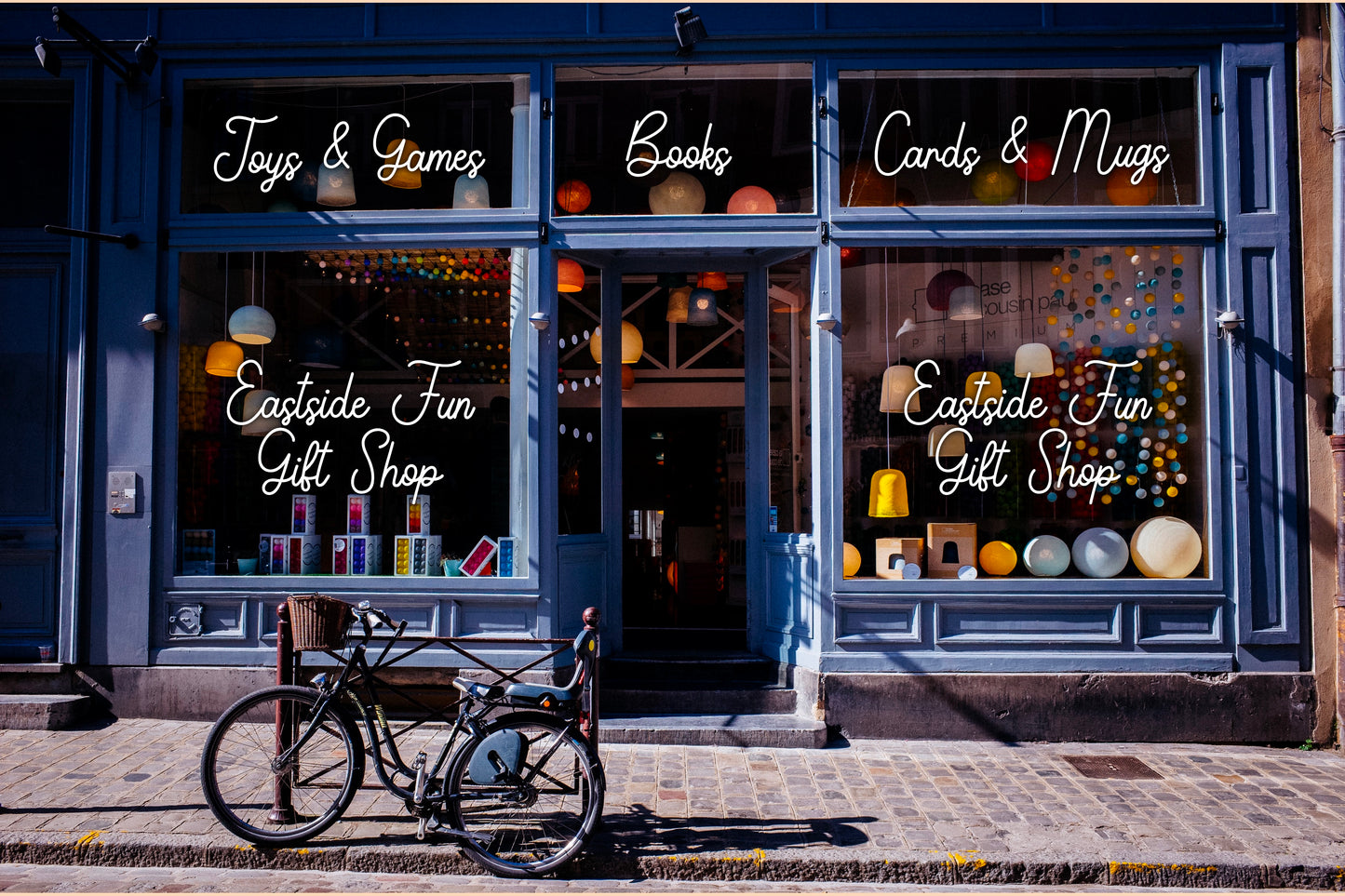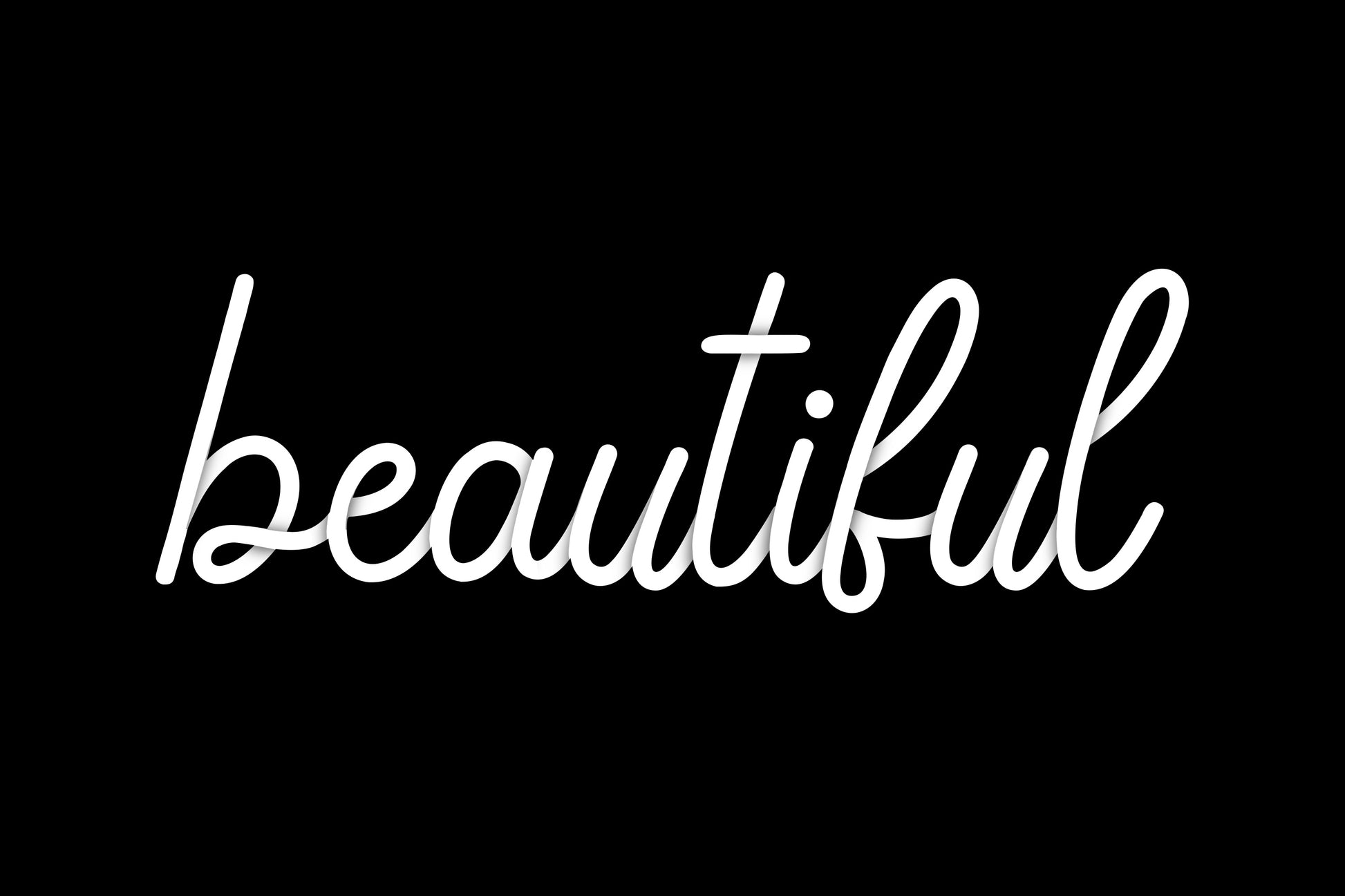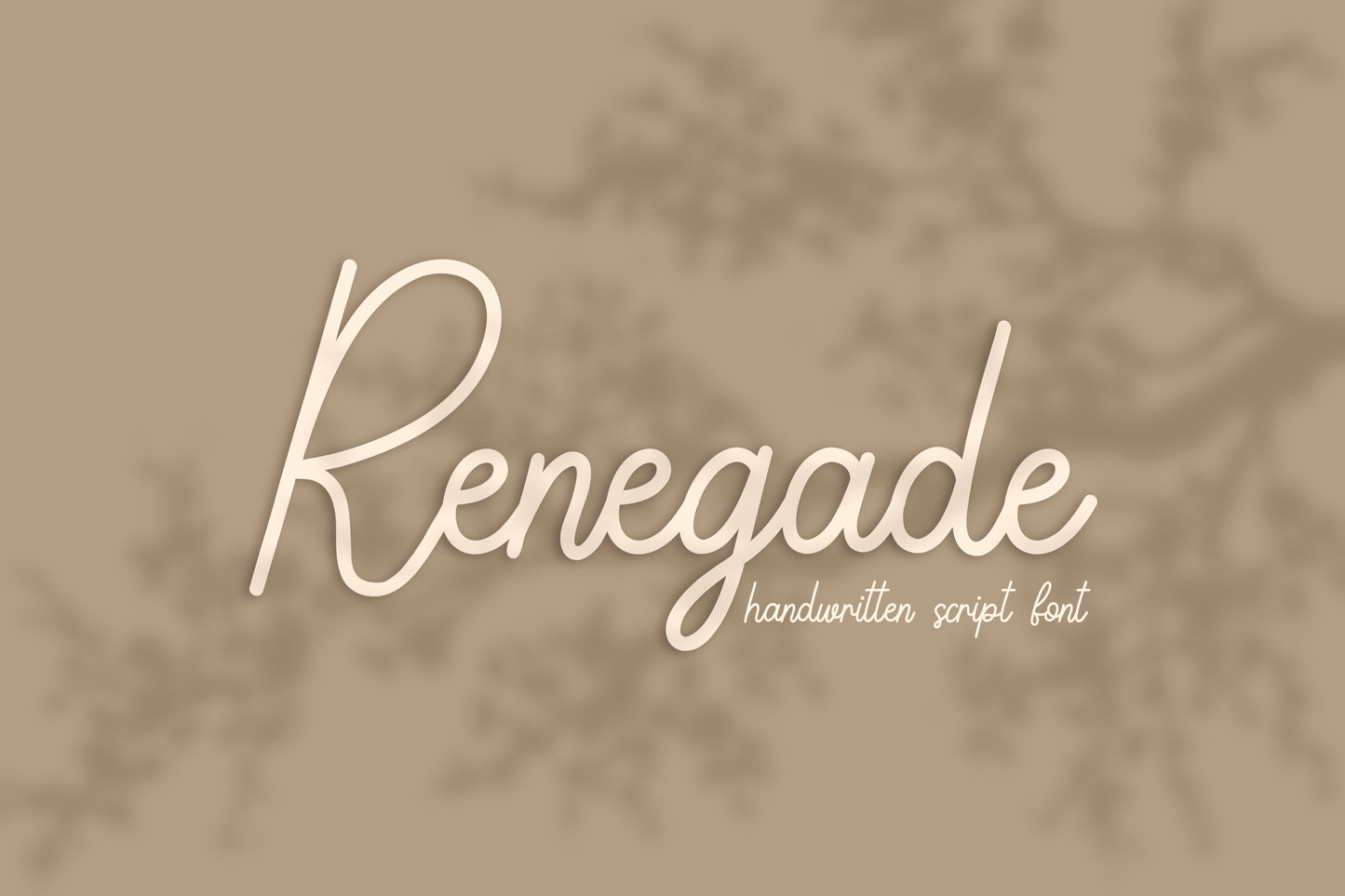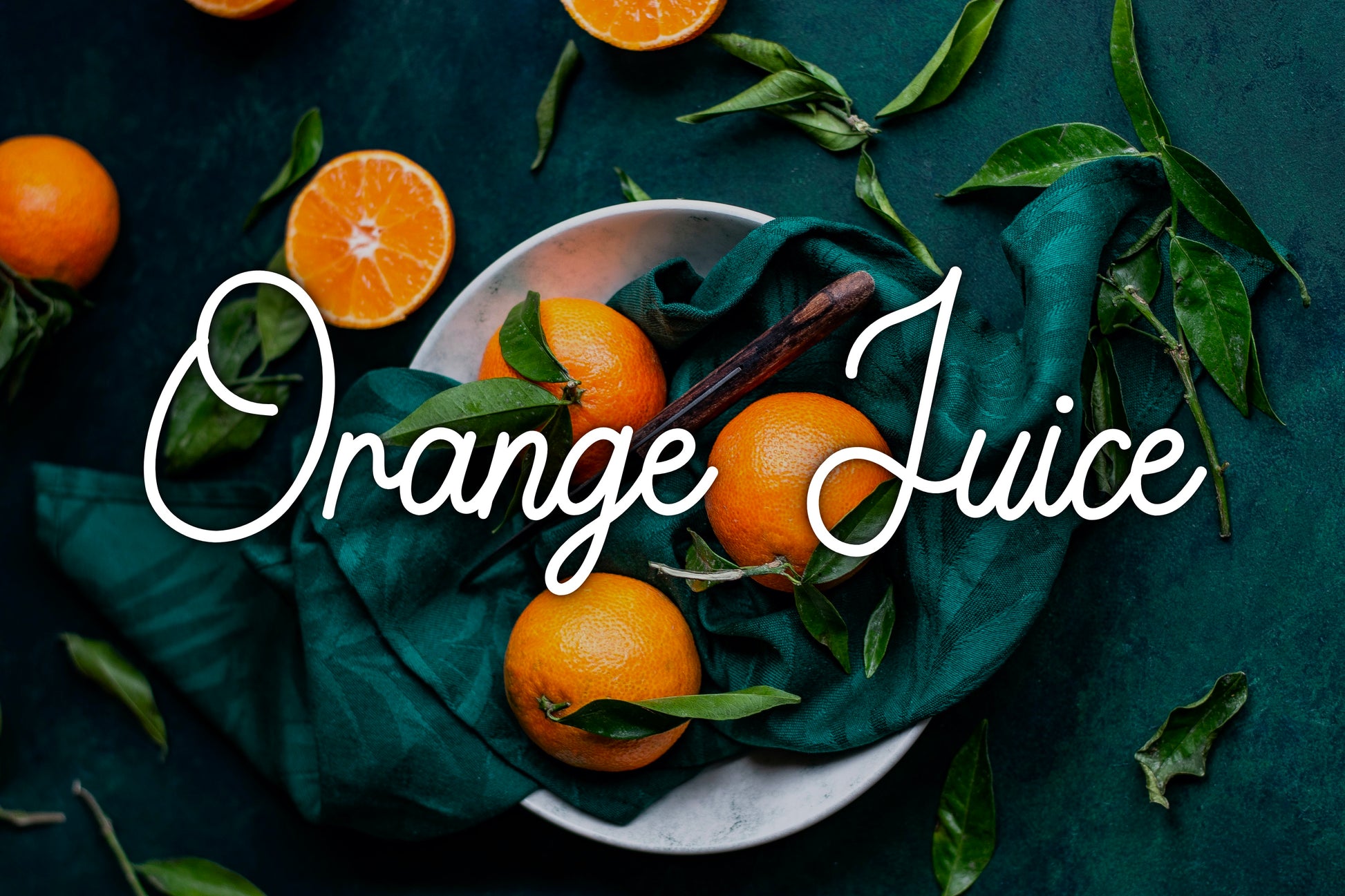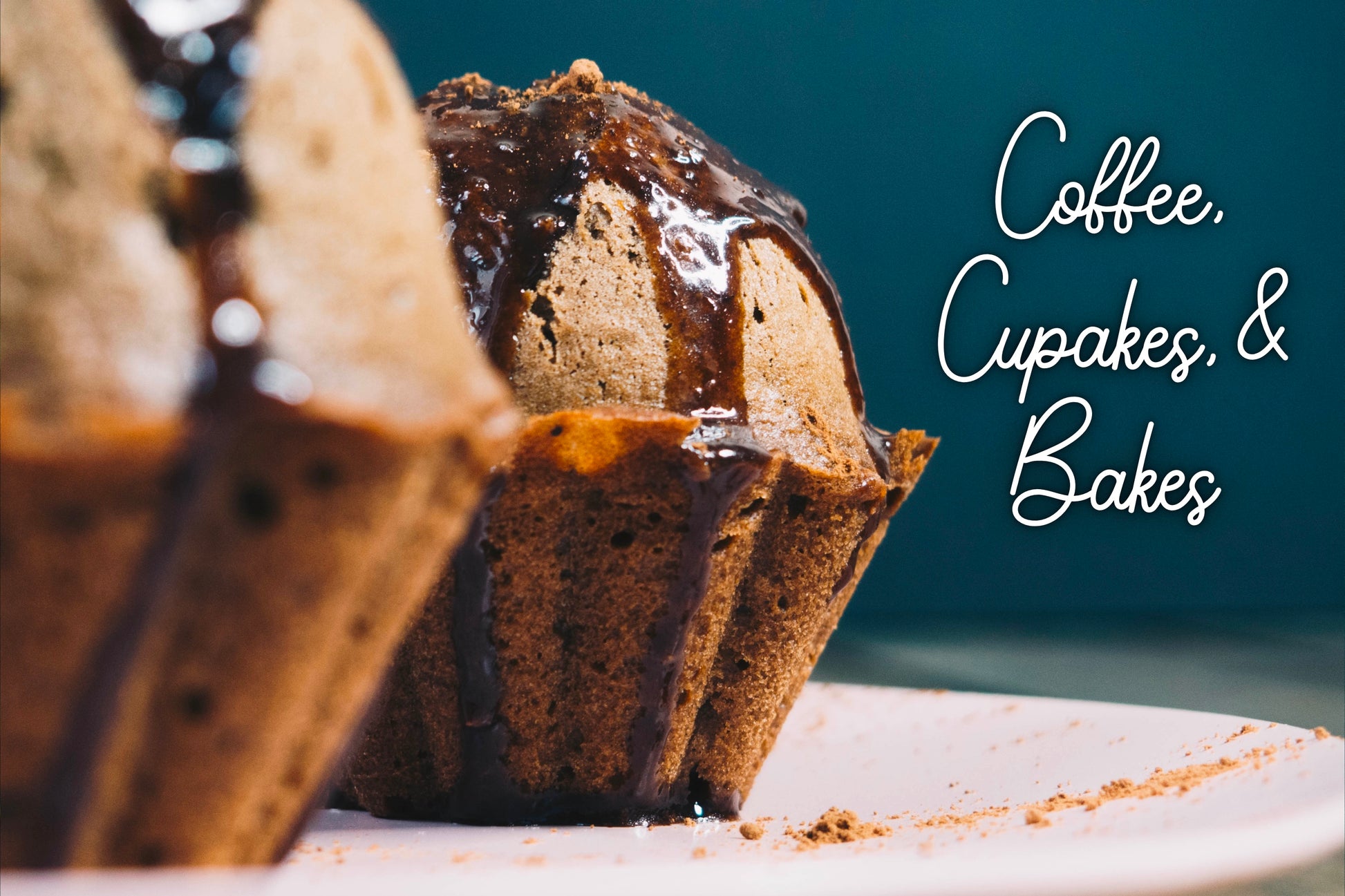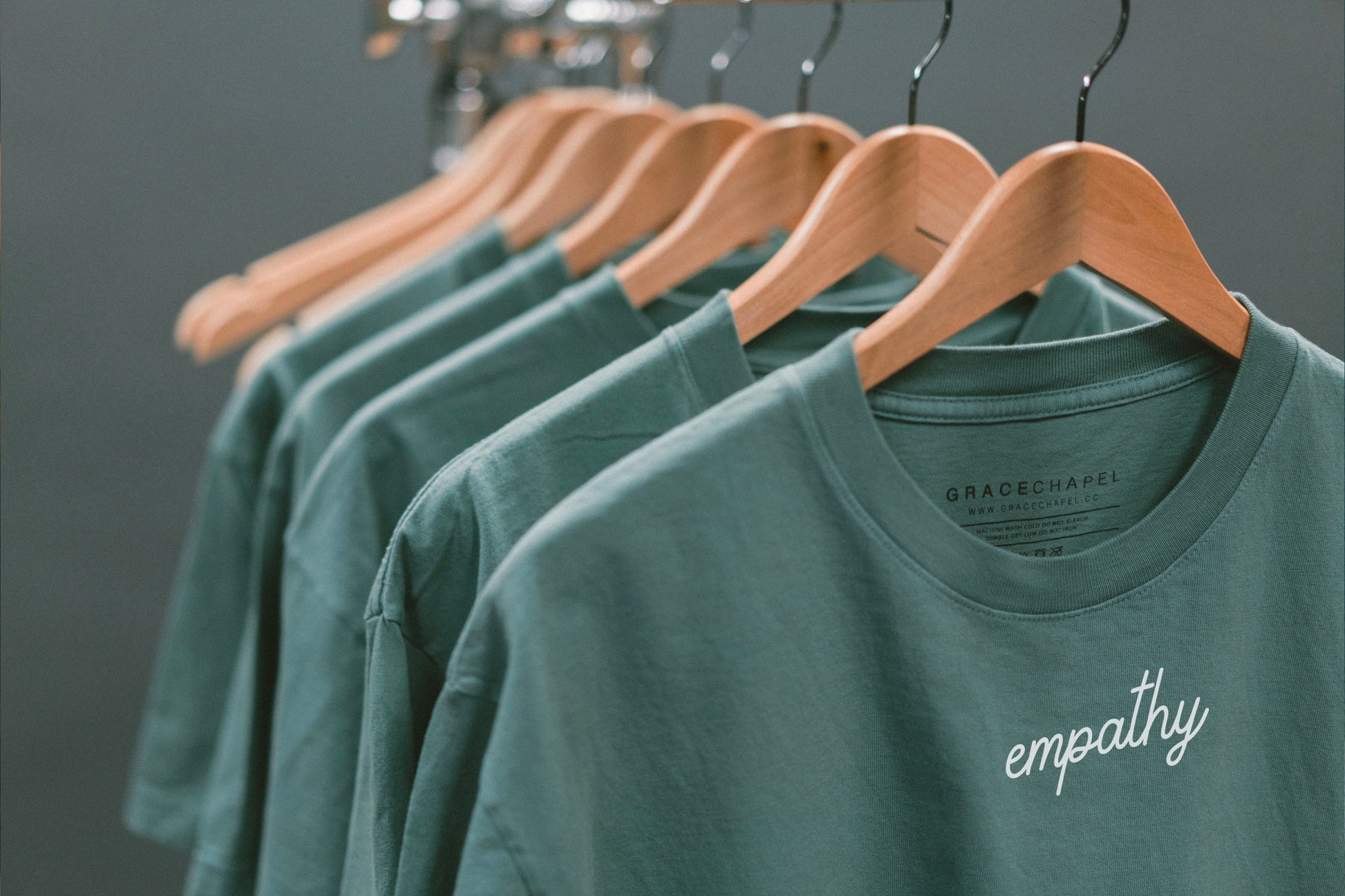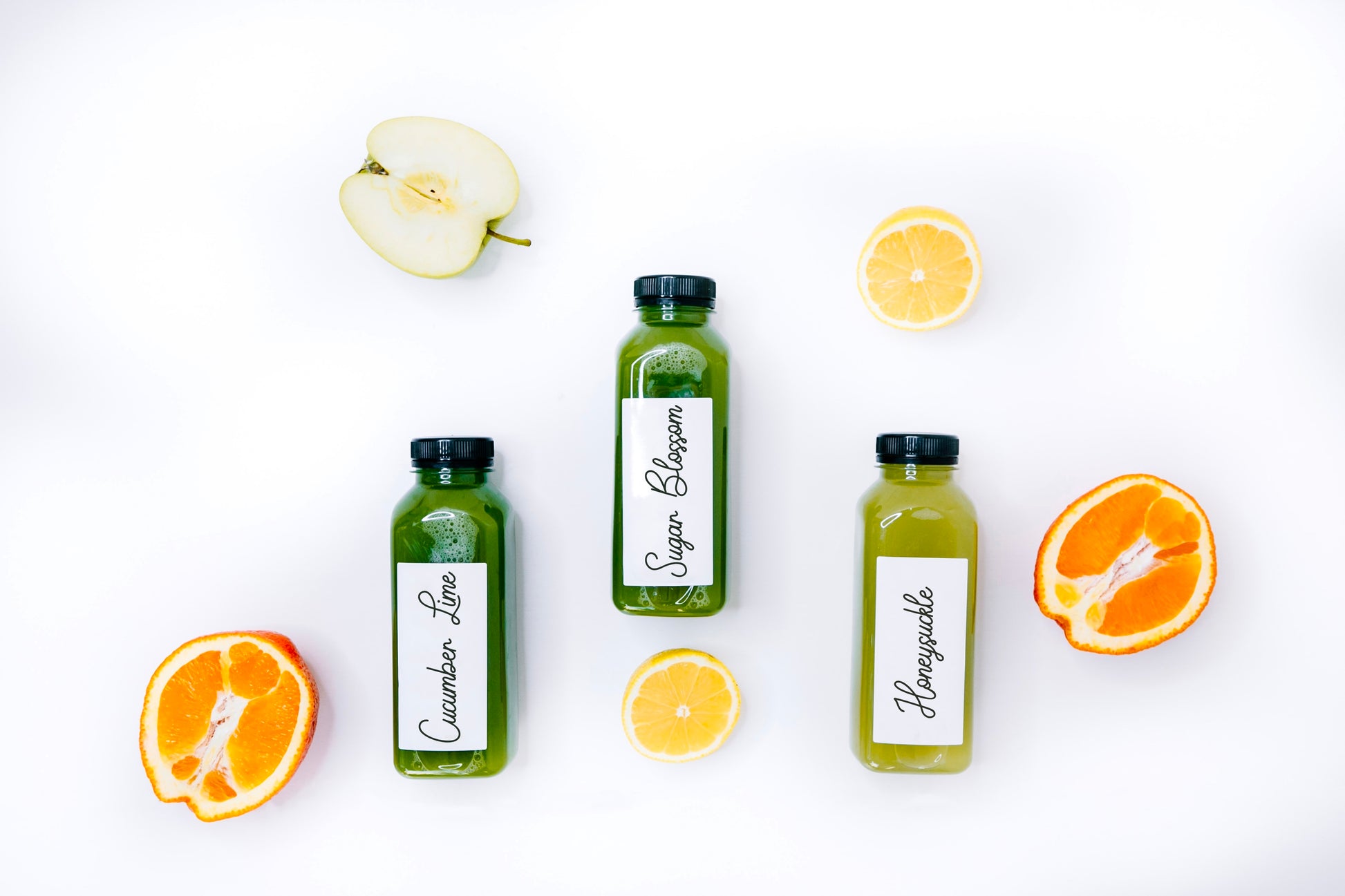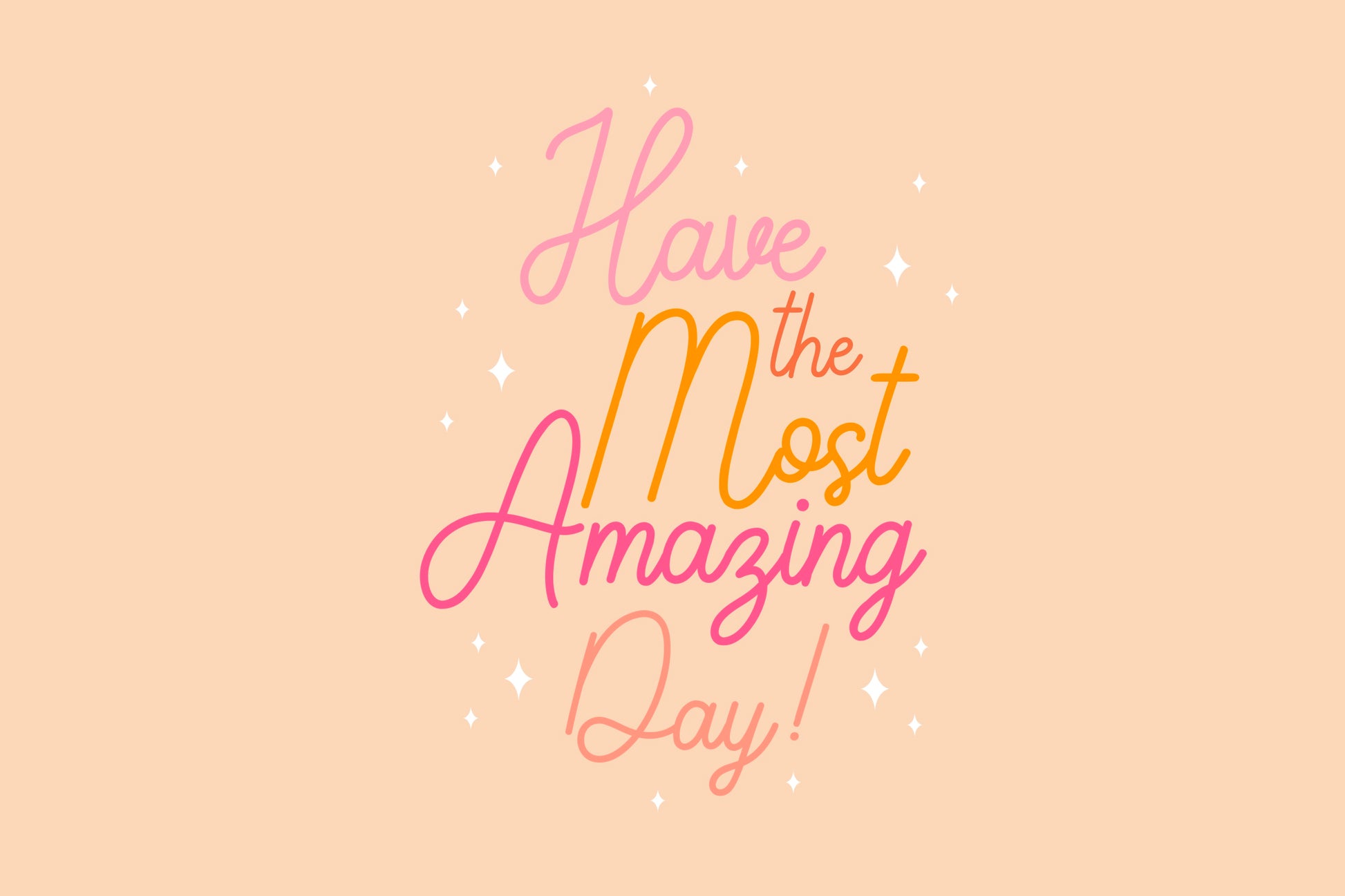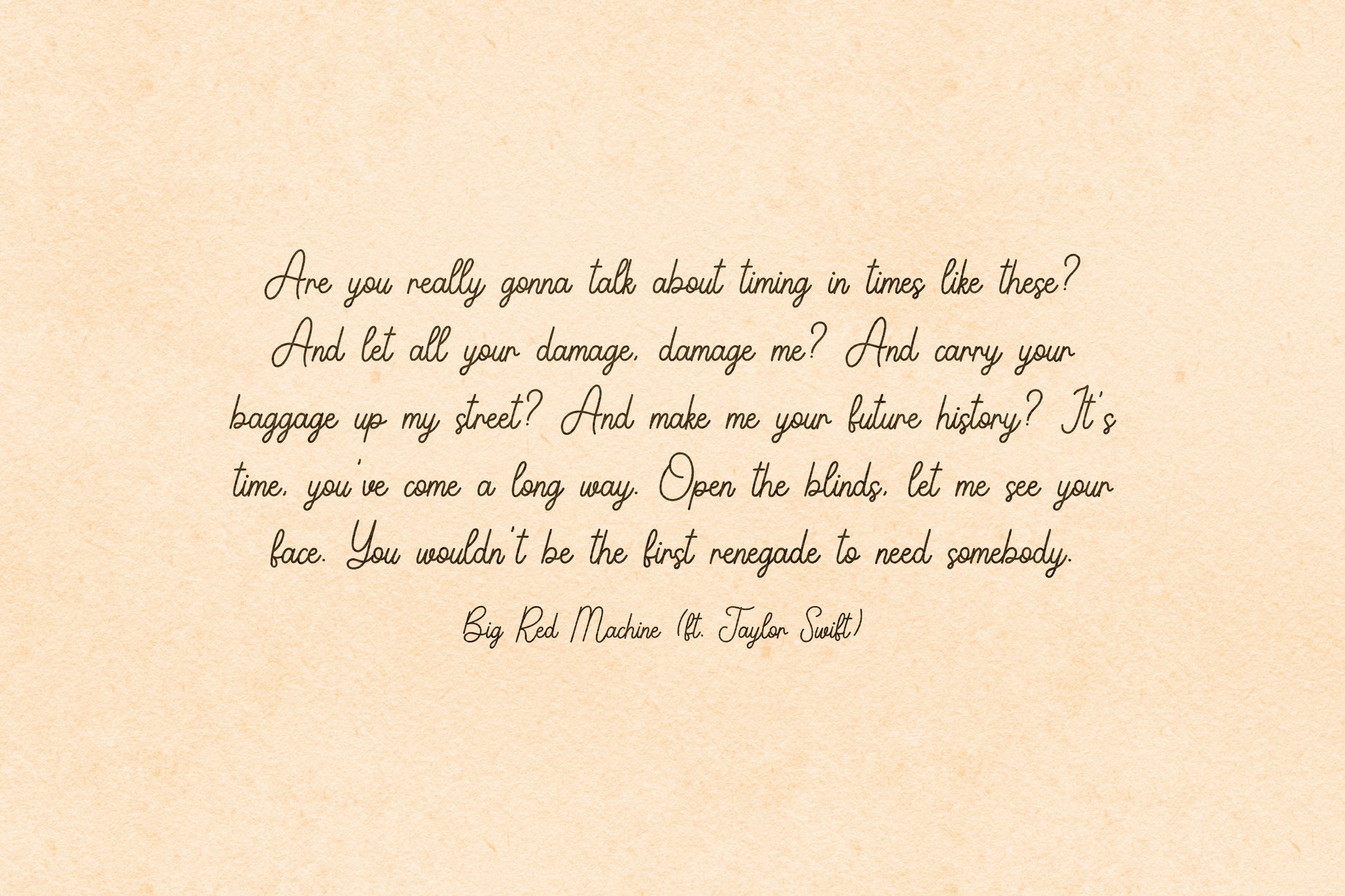
Renegade Handwritten Script Font
Introducing the Renegade handwritten/hand drawn font. This beautiful, minimalist script font will add an elegant, fun, handmade touch to your design! It’s a versatile font that’s great for branding, stickers, posters, merch, and any other occasion or design you can think of whether it’s formal and elegant or casual and relaxed!